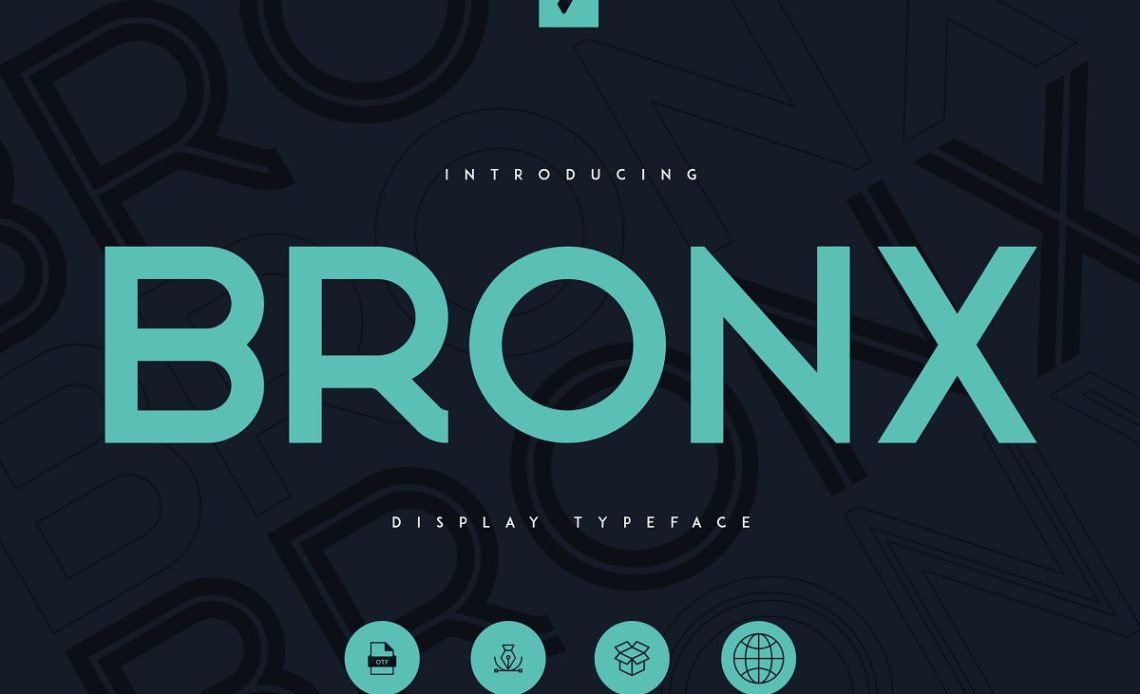
Introducing Bronx - the perfect Sans Serif typeface for your next project. Created by VPcreativeshop, this font family features six distinct styles that are sure to elevate your designs. Whether you're creating a new branding project or designing a stylish text overlay, Bronx is the font for you.
With its clean lines and casual feel, Bronx is a versatile font that works great in both large and small sizes. This font family includes Uppercase, numeral, punctuation, and symbol characters, as well as regular, outline, inline outline, two lines, and two lines outline styles.
Bronx is the best font for split monogram projects, and it's also perfect for home-ware designs, product packaging, and magazine headers. Plus, with its multilingual support, you can use Bronx for projects all around the world.